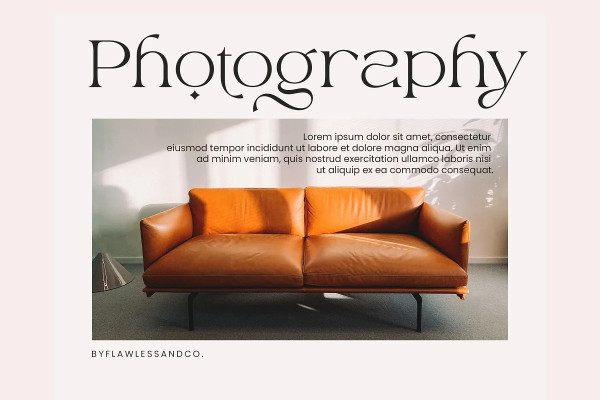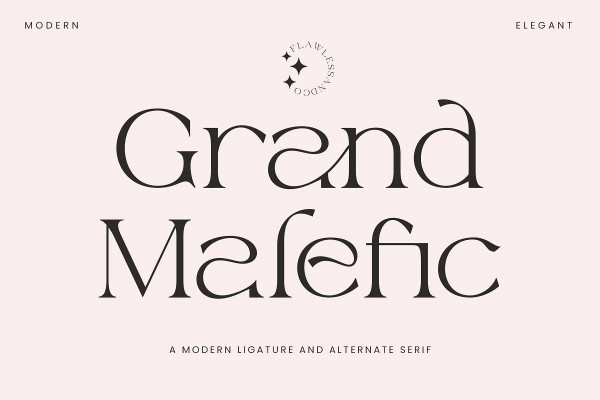
Grand Malefic Font
Grand Malefic Font – Modern Font, our new Momentic Yesterday Font Duo, Modern Font with Elegant Style is perfect for branding, logos, invitation, master heads, and more.